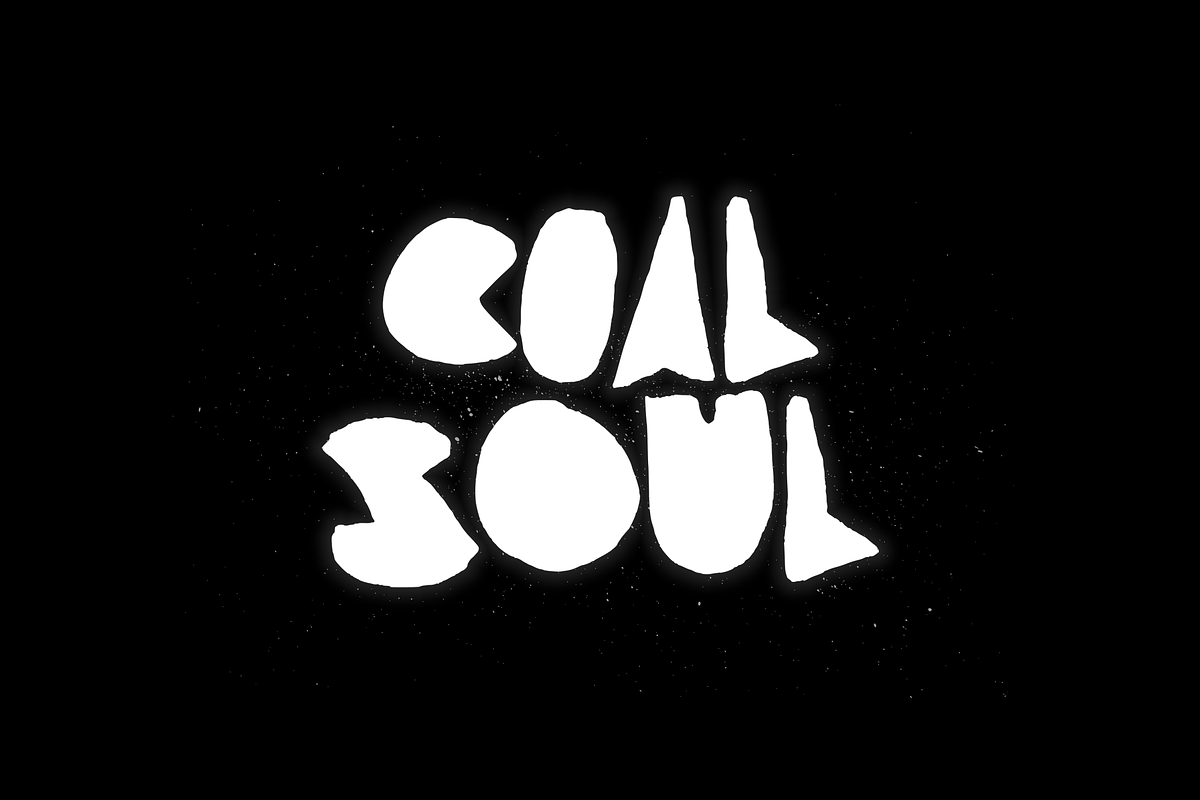
Coal Soul + Extras | 3 Styles Free Download
Coal Soul + Extras | 3 Styles Free Download is a gritty and expressive typeface collection that blends vintage soul with hand-crafted attitude. Featuring three distinct styles—Regular, Rough, and Stamp—this font is perfect for t-shirt designs, music posters, branding, vintage labels, and any creative project that needs raw, rebellious energy.
Coal Soul brings a weathered, rock-inspired vibe to your typography, while the included extras (like bonus illustrations or vector elements) help you build a cohesive, standout look. Use the clean version for a bold statement or the textured styles for authentic, worn-in character. It's free to try for personal use, but a commercial license is required for professional or monetized work.
Ignite your designs with Coal Soul + Extras | 3 Styles Free Download and deliver fonts that hit hard with soul, grit, and bold visual presence. A must-have for designers who love vintage flair with a modern punch.